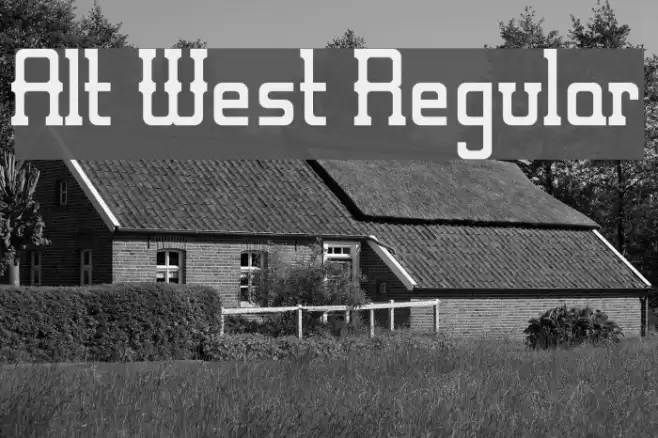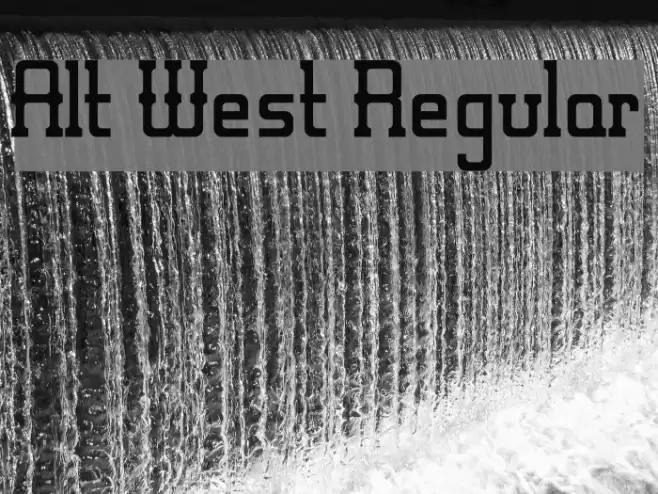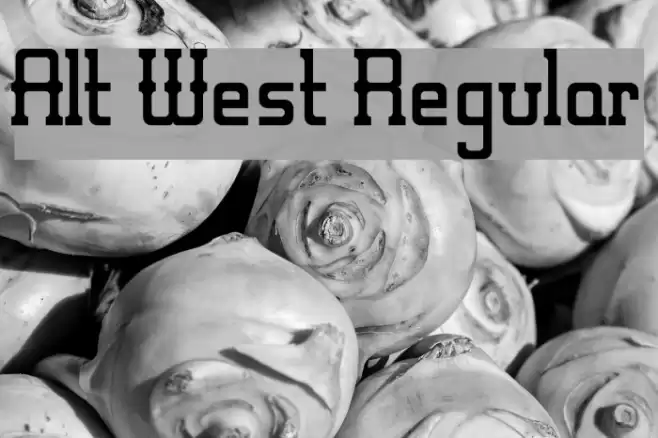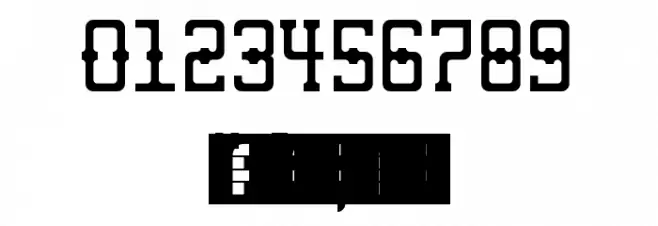
Alt West Regular Font
Alt West Regular Description
This font features a bold and structured design with a distinctly Western-inspired aesthetic. The characters are blocky and geometric, with strong vertical and horizontal lines that create a sense of stability and strength. The uppercase letters are particularly striking, with a uniform height and width that give them a commanding presence. The lowercase letters maintain the same boldness but with a slightly more compact form. Numerals are consistent with the overall style, ensuring readability and cohesion. The special characters are designed to match the bold and structured look, making them suitable for decorative purposes.
A bold, structured font with a Western-inspired aesthetic from Uncategorized fonts.